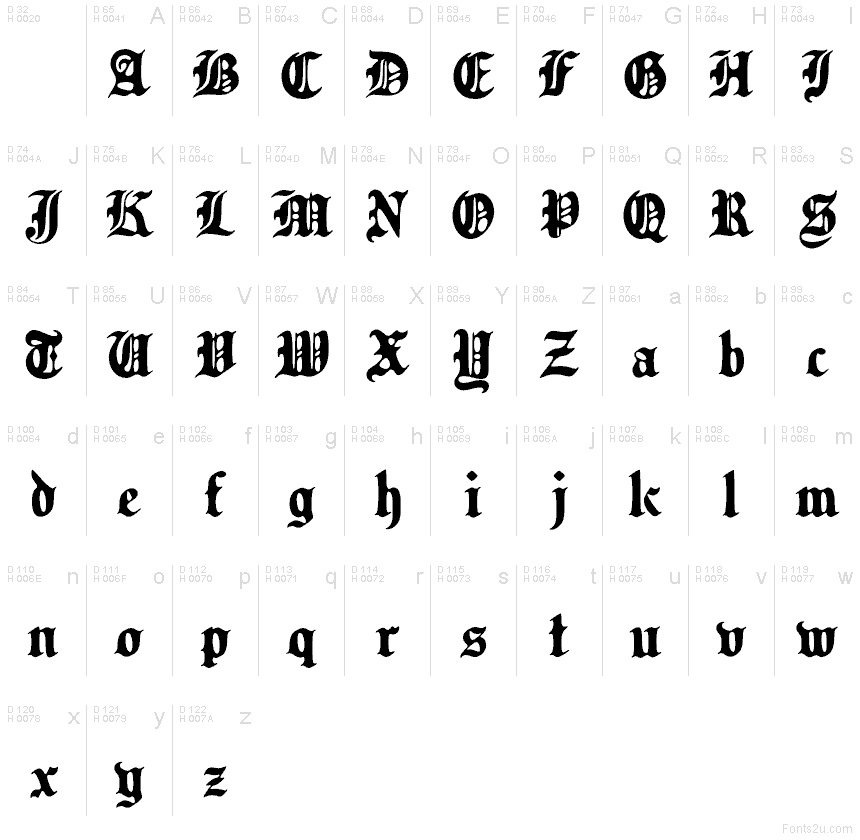
CS Bristol Drawn font by Craft Supply Co. captures the historical charm of a bold gothic medieval style. The inspiration for this free Gothic display font is typography during this historical era spanning 1000 years from 500 to 1500 AD. With ornate intricate detailing, the capital letters instantly invite viewers to explore the depth of your designs.
Explore CS Bristol Drawn in designing book titles, logos and monograms, posters, flyers and brochures, business cards, stationaries, labels and packaging covers where you can mention date references among others. It can also be used in digital design for websites or social media like Instagram images or short animations.